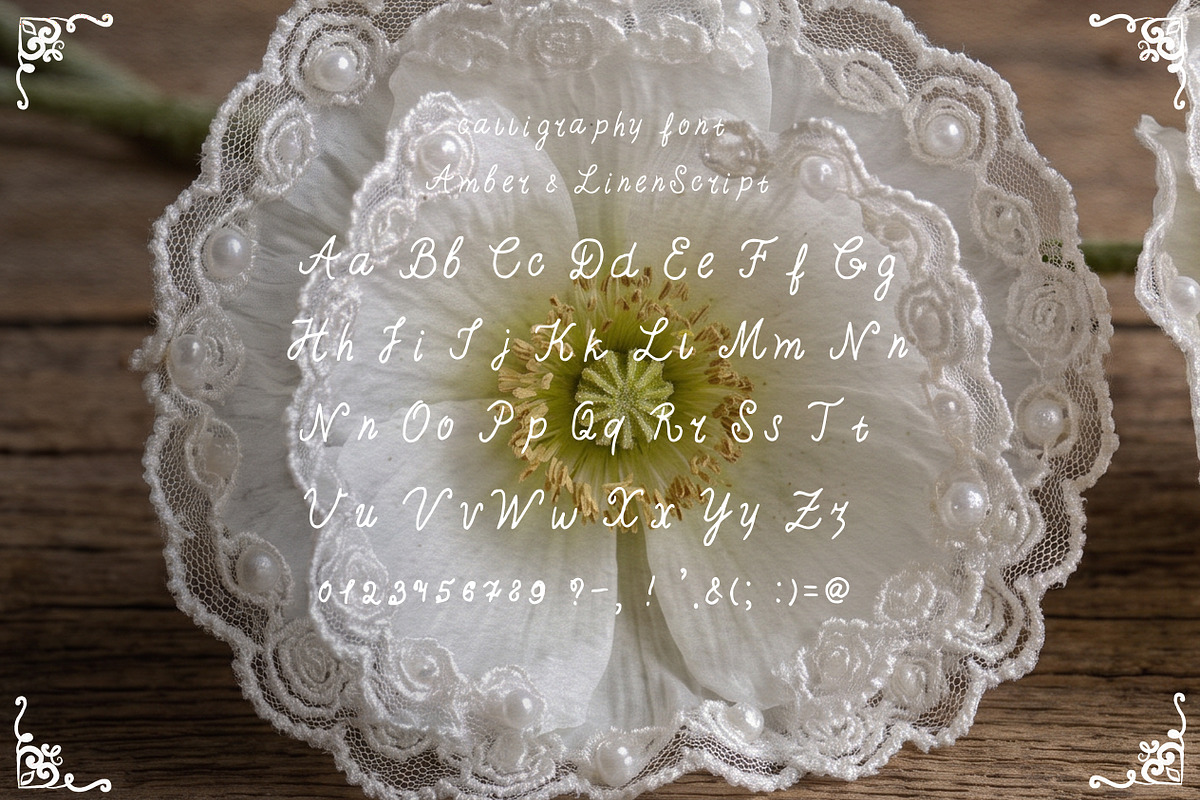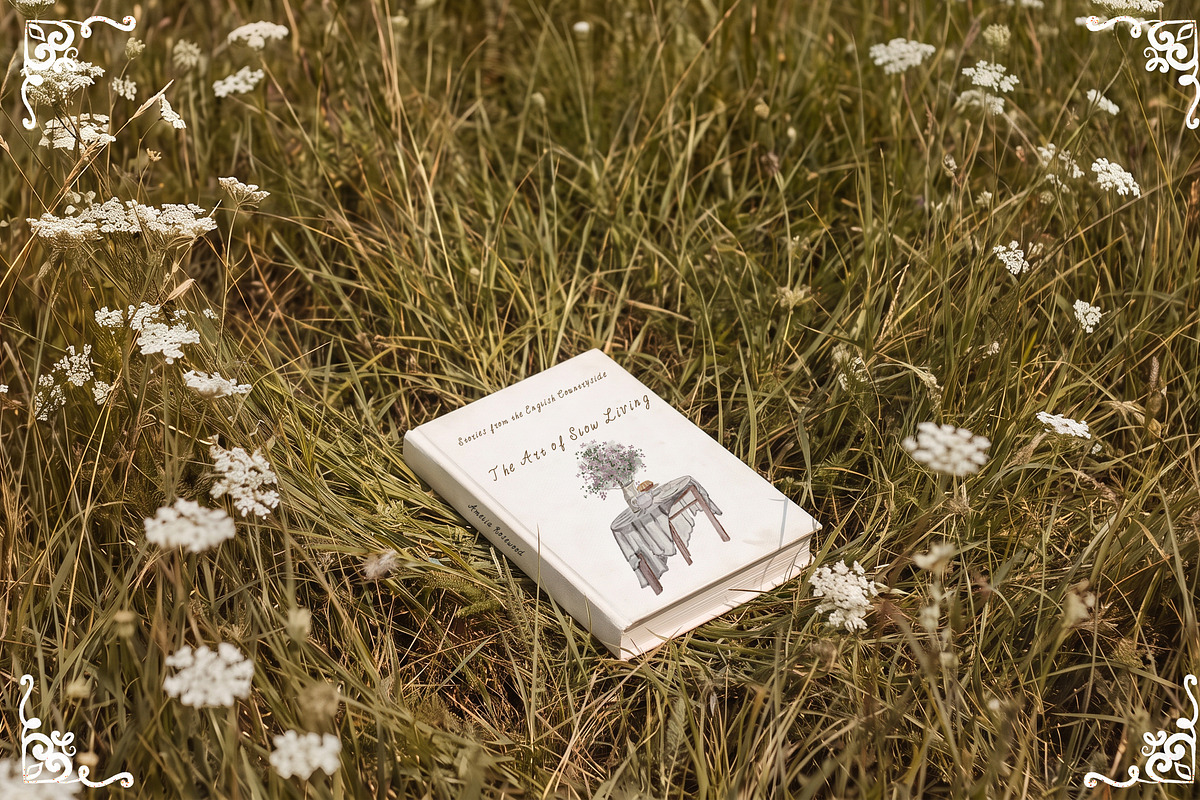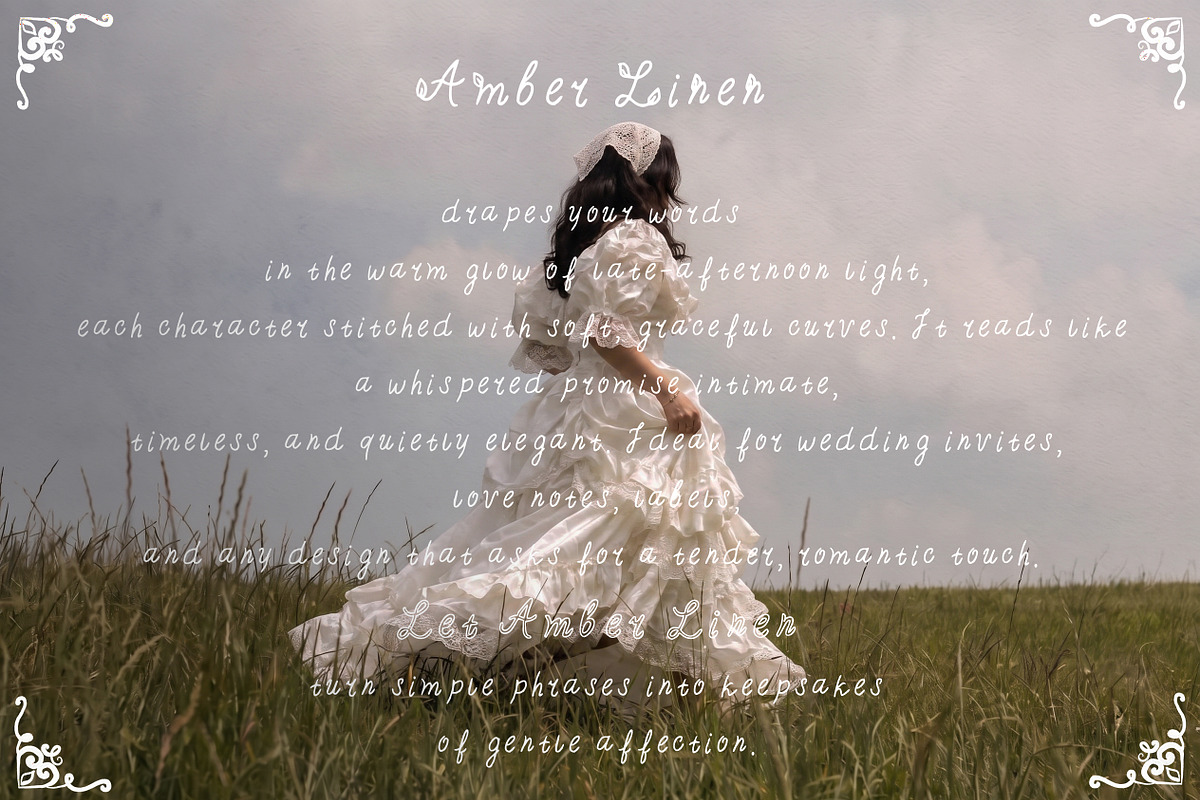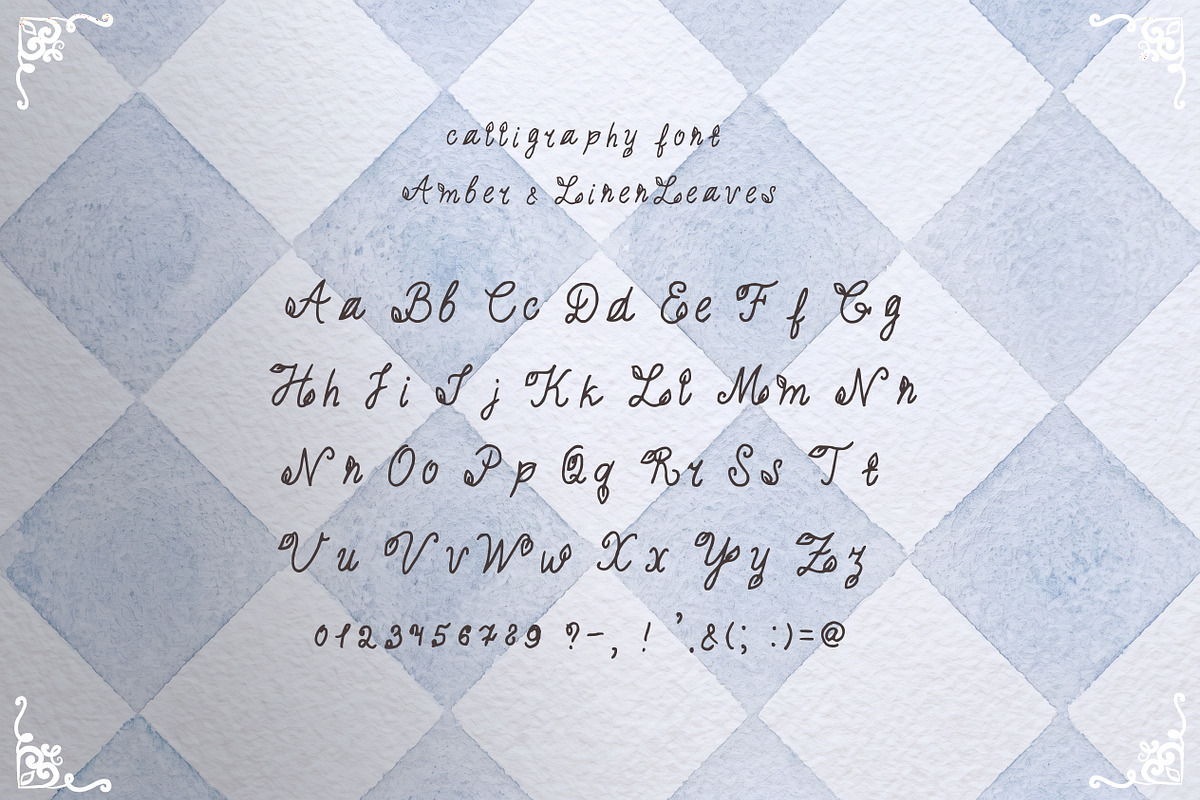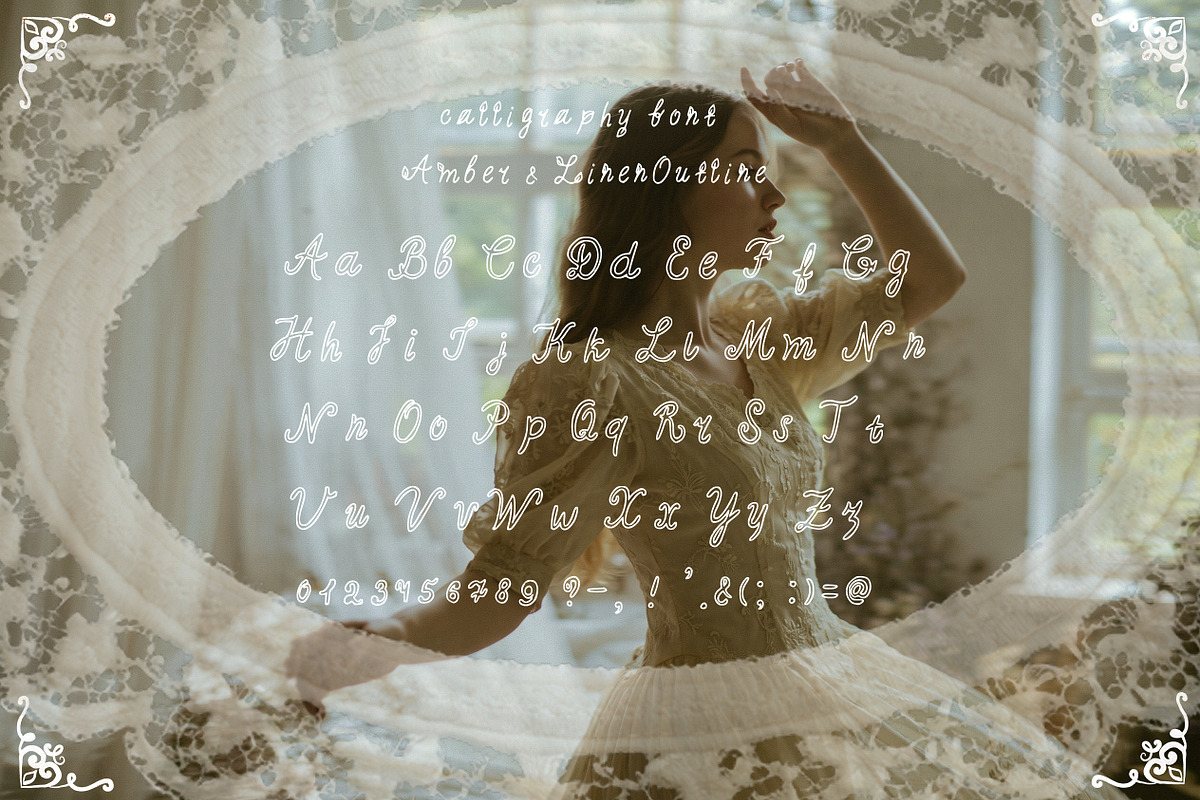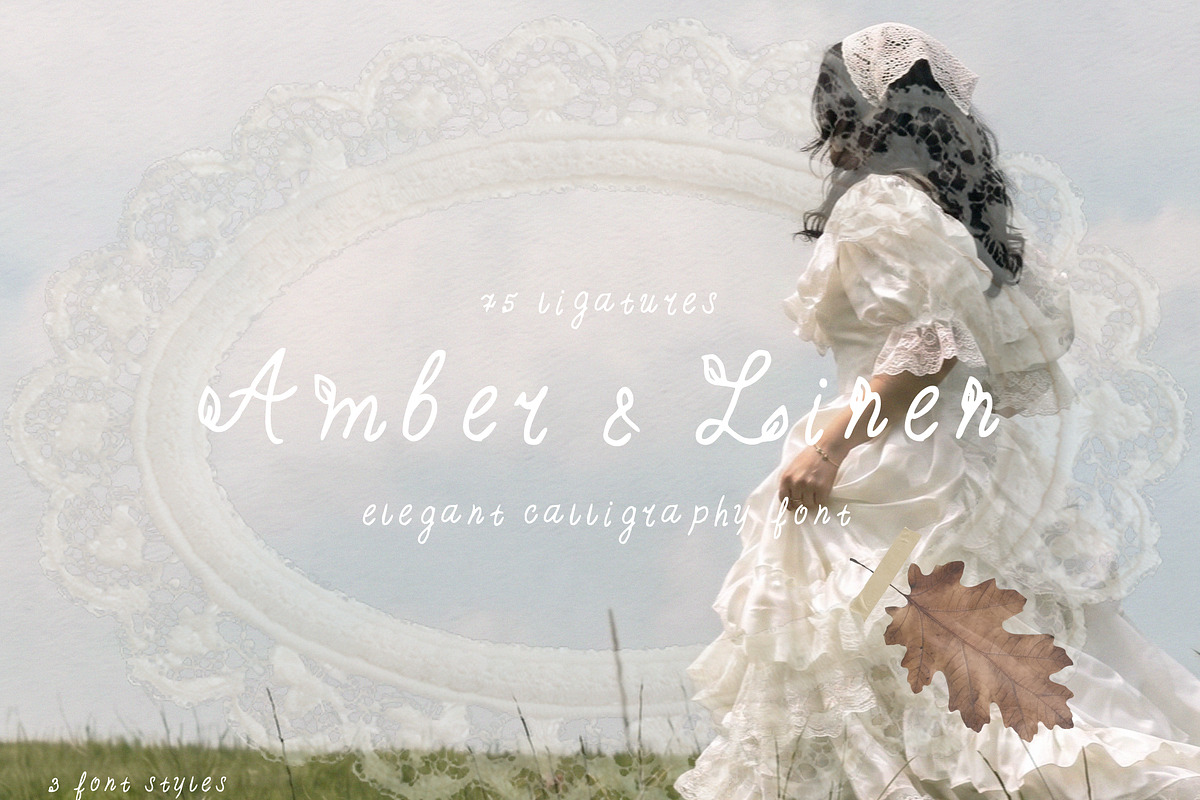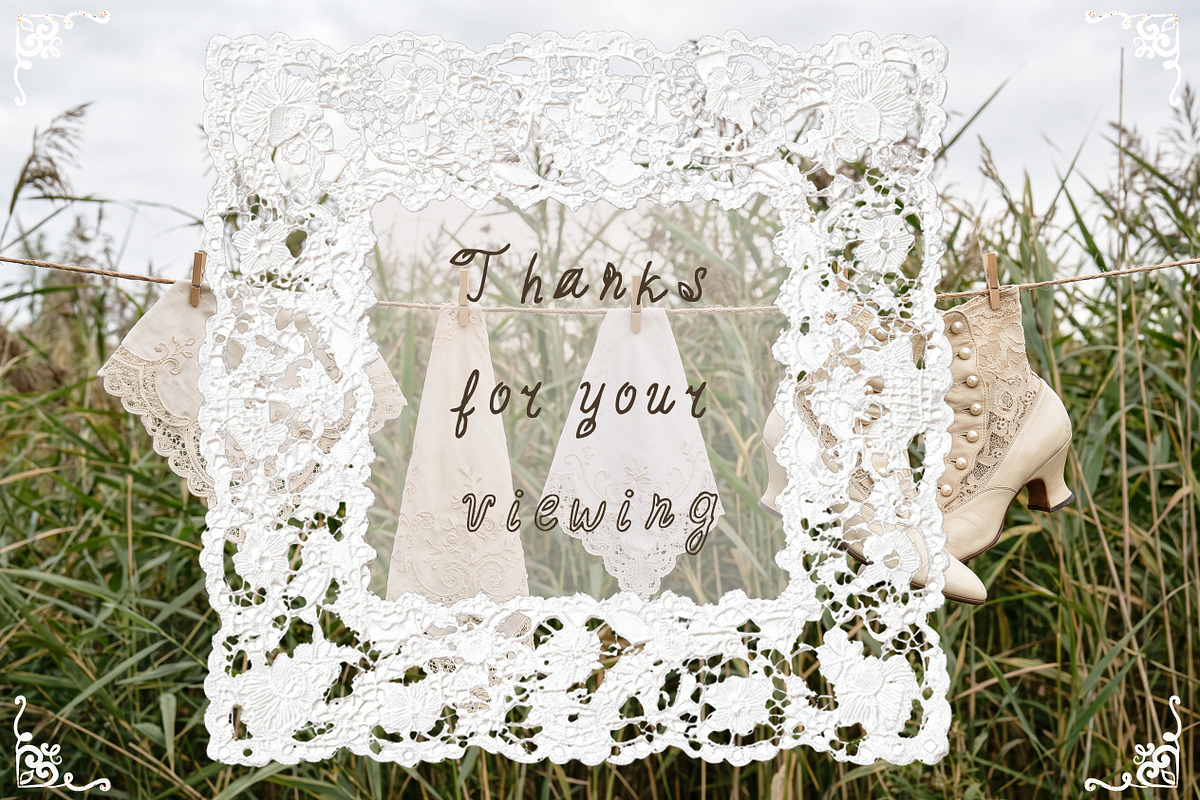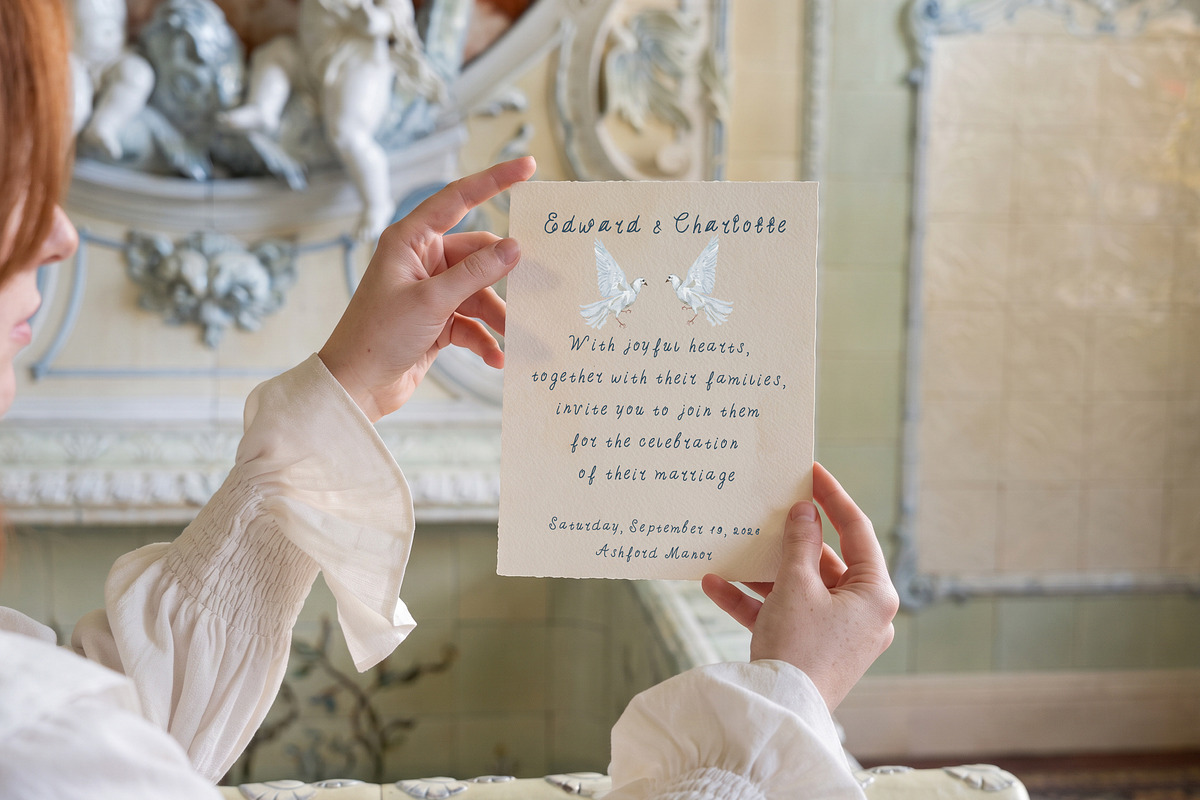
Amber & Linen-Romantic Font
Amber & Linen Font Collection
Amber & Linen is a handcrafted font collection inspired by vintage botanical journals, autumn gardens, and timeless handwritten lettering.
The collection includes three unique font styles designed to bring warmth and elegance to your creative projects. Perfect for branding, packaging, invitations, stationery, logos, greeting cards, social media, and botanical-inspired designs.
Whether you’re creating a cozy autumn collection or a timeless vintage brand, Amber & Linen will add a natural handcrafted touch.
Branding
Logos
Packaging
Wedding invitations
Greeting cards
Social media
Book covers
Botanical projects
Cottagecore designs
Vintage designs
Autumn collections
A personal Note:
This font was inspired by natural motifs and ancient handwritten inscriptions, carefully packed in envelopes and sealed with wax.